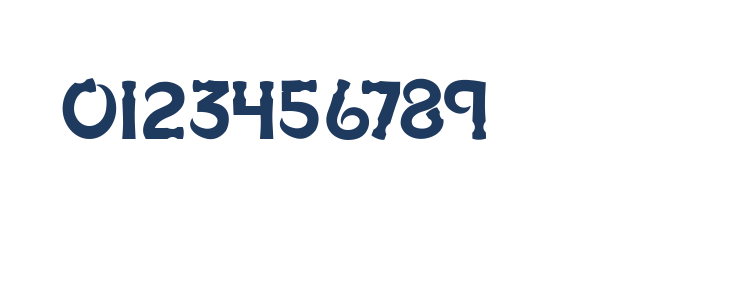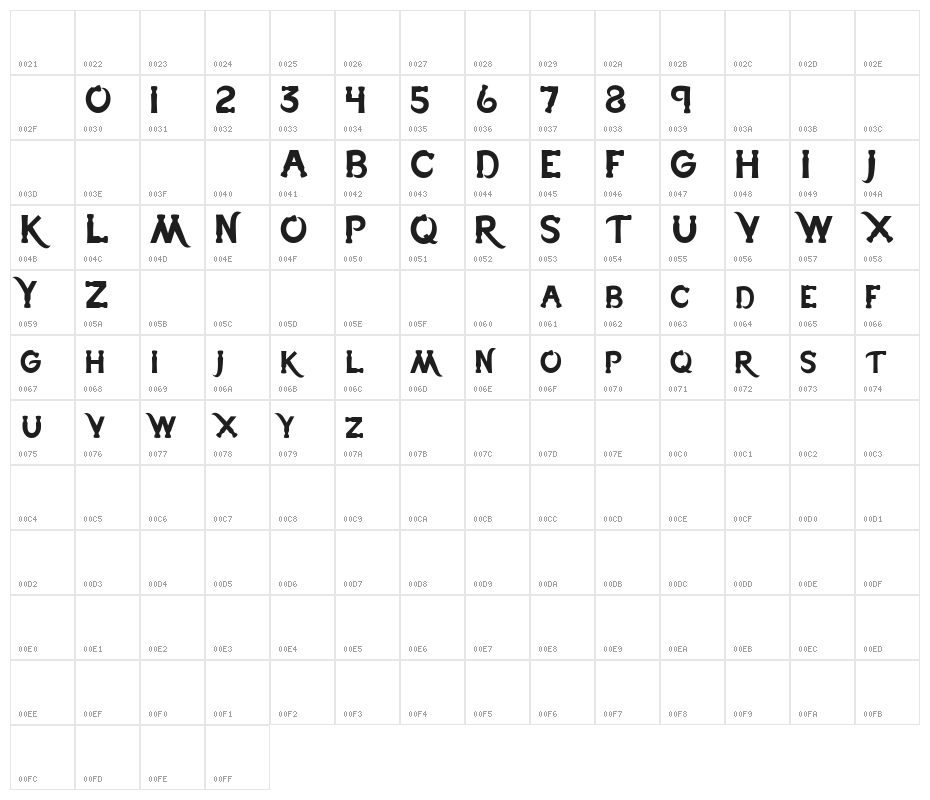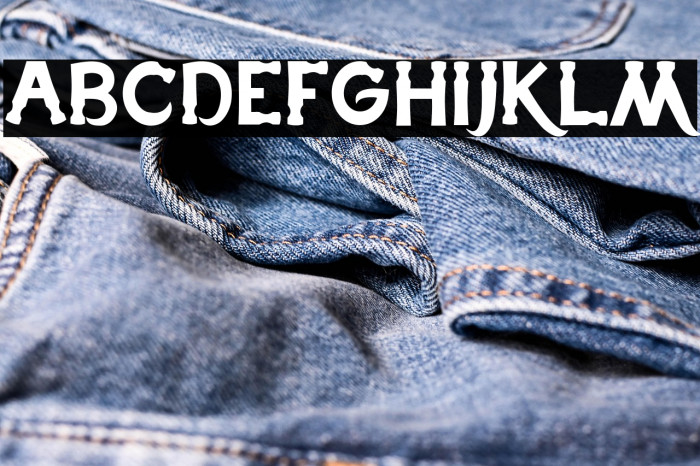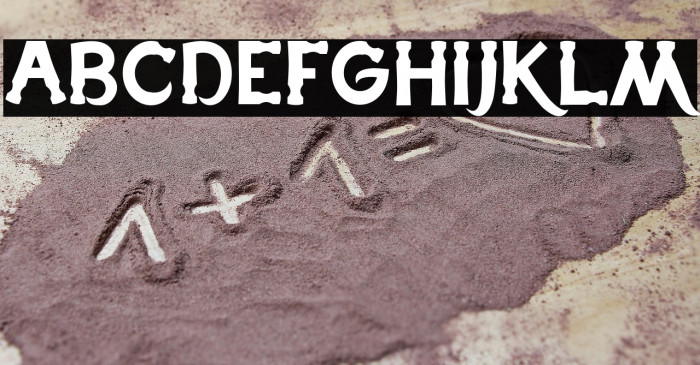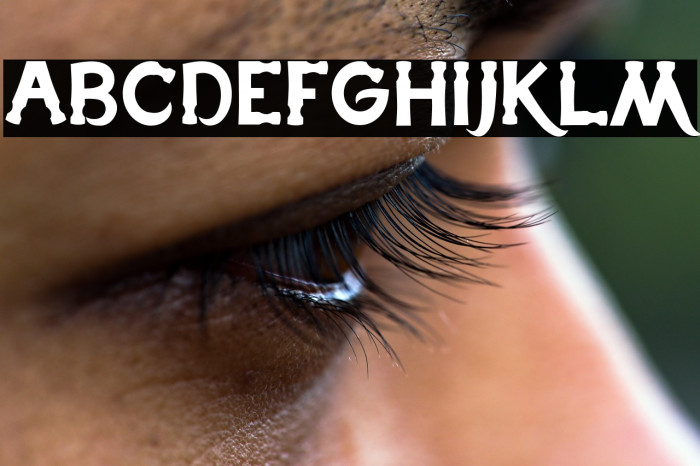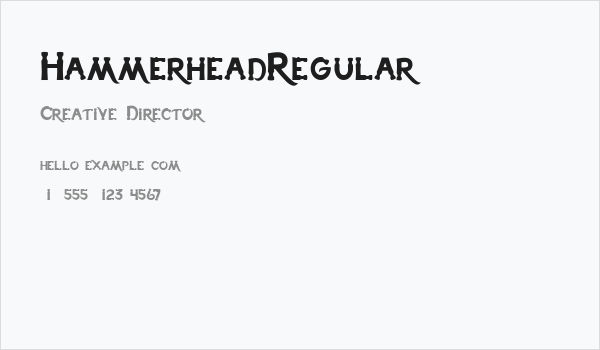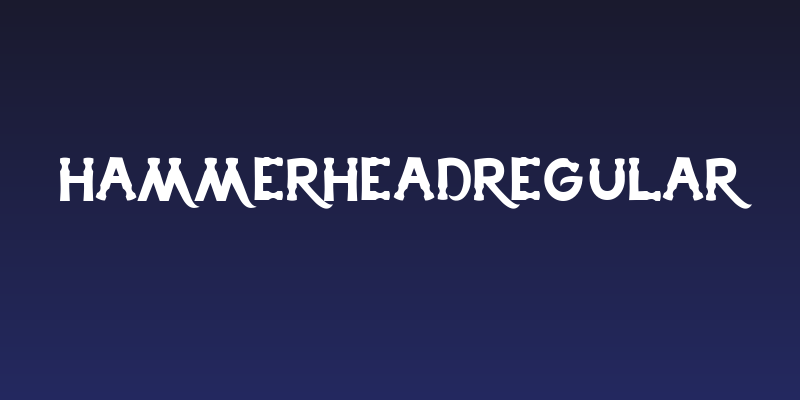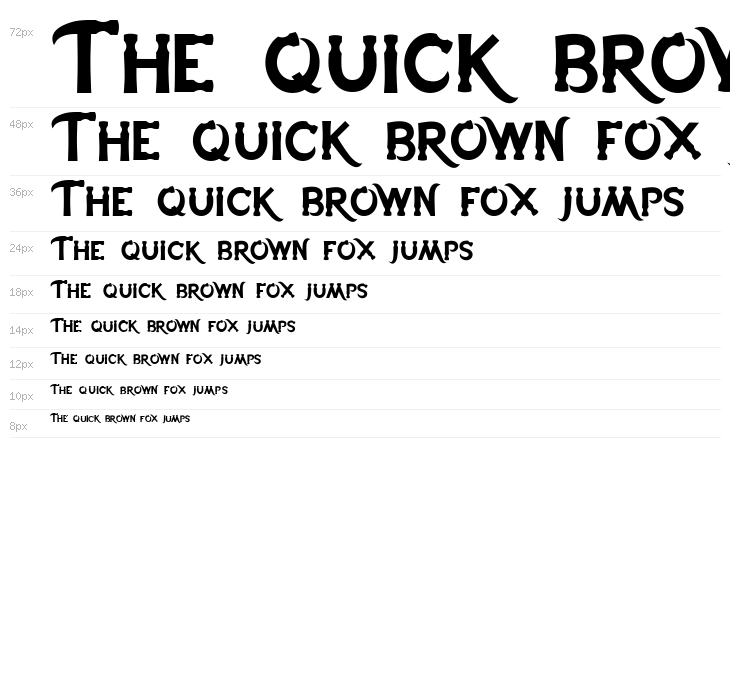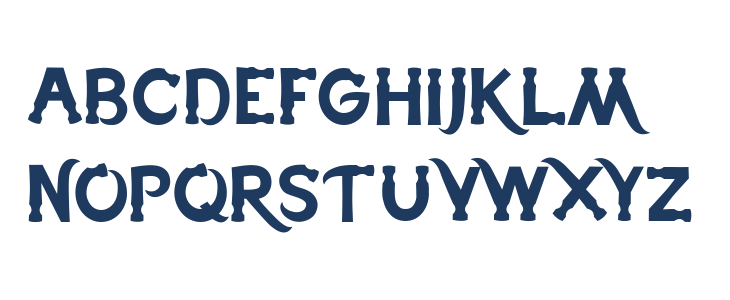
HammerheadRegular Font
HammerheadRegular Description
This font features a bold and distinctive style with a playful, almost whimsical character. The letters have a unique, slightly irregular shape that gives them a hand-drawn appearance, yet they maintain a strong and sturdy presence. The strokes are thick and consistent, providing a sense of boldness and confidence. The overall design is reminiscent of vintage or retro styles, with a modern twist that makes it suitable for contemporary use. The numbers and special characters follow the same design principles, ensuring a cohesive look across all elements.
Overall StyleVintage
Proposed ProjectsIdeal for branding projects, poster designs, and any creative work that requires a bold, eye-catching typeface.